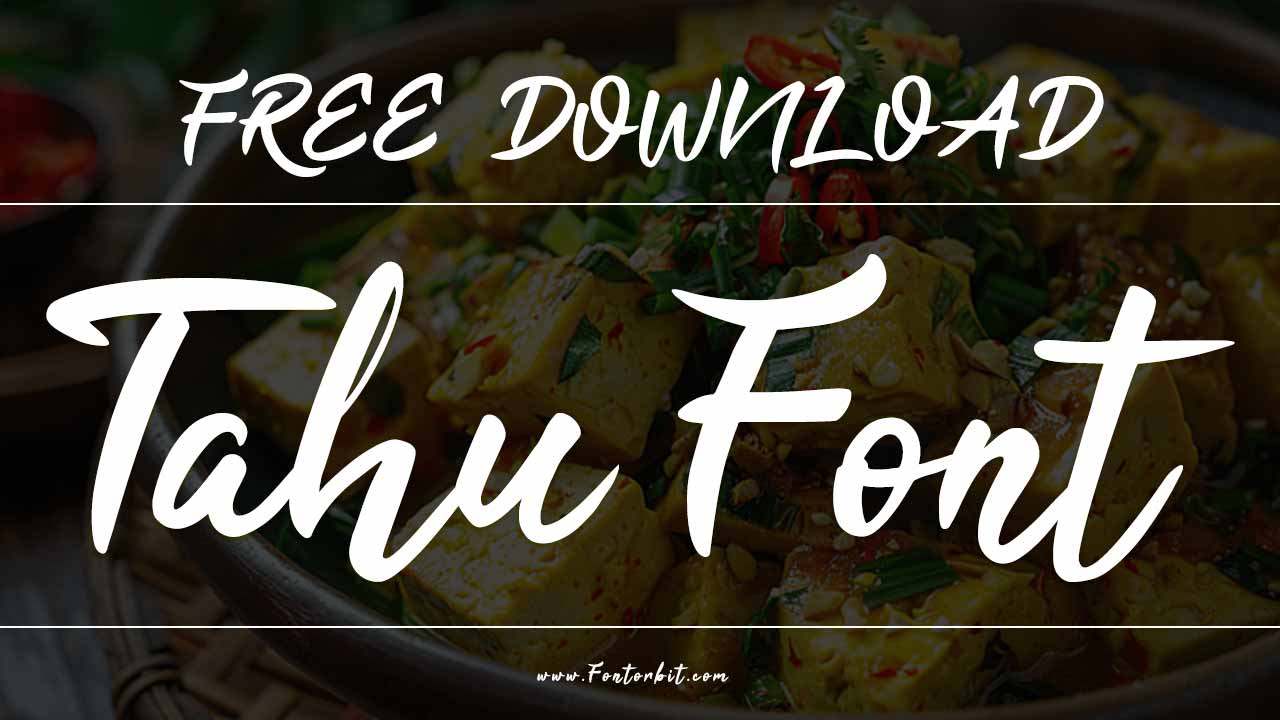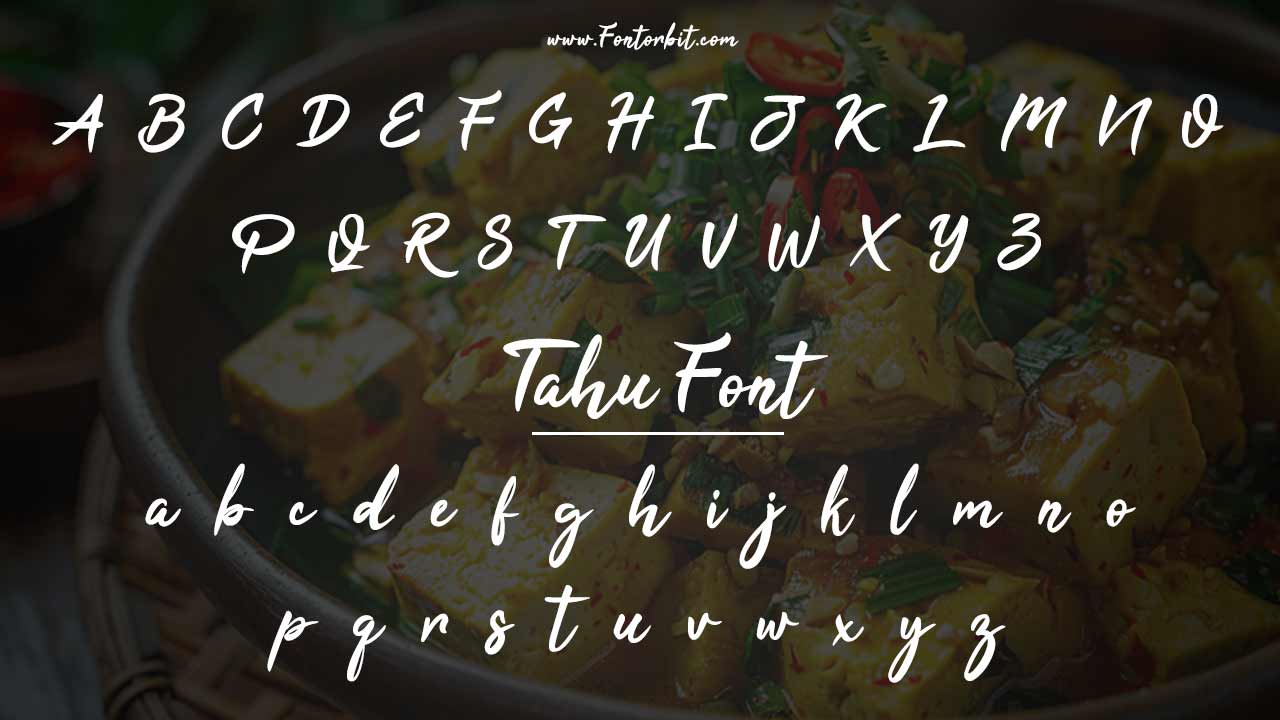
Fonts have personalities, just like people. Some are bold and authoritative, others are playful and whimsical. The Tahu Font script exudes effortless style, akin to a well-dressed friend who consistently maintains a polished appearance without going overboard. If you love modern design and want a font that adds a touch of sophistication without being too fancy, you’ll love Tahu Font.
This beautiful script font, which Syaf Rizal made, gives branding, web design, and creative projects a handwritten look. Tahu Font has the perfect mix of modern and classic looks, so it is great for making social media captions, a stylish logo, or a wedding invitation.
Why Choose Tahu Font?
As with clothes, picking the right font needs to fit the occasion and make an impression. Here’s why Tahu Font stands out:
- Handwritten Appeal – It has a natural, smooth flow, making it feel personal yet professional.
- Modern Design – Perfect for fashion brands, influencers, and trendy businesses.
- Versatile – Works well for banners, ads, and web elements.
- Easy to Read – Tahu remains legible and clean, unlike overly decorative script fonts.
- Cultural Connection – Used in New Zealand for materials related to te Tiriti o Waitangi and other Indigenous design projects.
A good font should tell a story, and Tahu does exactly that. It looks casual but put-together, which is great for people who want to add a modern touch to their projects.
Tahu Font Family
Tahu isn’t just one font; it has several variations to fit different design needs. Whether you need something bold or a little softer, there’s a version of Tahu to match your vision:
- Tahu-Bold – Strong and eye-catching, perfect for headlines.
- Tahu Ultra – A heavier version for maximum impact.
- Tahu Italic – A stylish, slanted version for elegant designs.
- Tahu Ultra Italic – Combines boldness with a graceful slant.
With these options, you can mix and match within the same font family to create hierarchy and variation in your designs.
Tahu Font Vs. Similar Fonts
If you’re considering Tahu Font, you might be wondering how it compares to other stylish script fonts. Here’s a quick comparison:
Tahu stands out because it maintains elegance without being overly ornate. It’s not too curly or decorative, making it a great all-rounder for both personal and commercial projects.
Where Can You Use Tahu Font?
The beauty of Tahu Font is that it’s not limited to one type of design. Here are some creative ways you can use it:
1. Branding & Logo Design
If you run a boutique, a skincare brand, or a trendy café, Tahu Font adds a polished yet approachable feel to your branding. Think of it as the font equivalent of a handwritten note, charming, stylish, and full of personality.
2. Web Design & Social Media
Tahu Font is great for website headers, Instagram story highlights, and Pinterest graphics. It stands out while remaining clean and readable, essential for online content.
3. Wedding & Event Invitations
Elegant yet modern, Tahu Font brings a sophisticated touch to wedding invitations, thank-you notes, and party decor. This is the one if you want a script font that feels classy but not overly formal.
4. Nz Cultural & Indigenous Events
Tahu Font has been used in New Zealand’s Māori cultural events, including materials related to Te Pāti Māori, Ngāi Tahu, and Pita Tipene. It’s a font that connects with heritage while maintaining a modern edge.
5. Greeting Cards & Stationery
From heartfelt thank-you cards to stylish planners, Tahu Font adds a handwritten touch that feels personal and warm.
Final Thoughts
Tahu Font is more than just a typeface, it’s a design statement. Whether you’re a brand owner, a content creator, or just someone who appreciates good typography, this font brings a modern, stylish edge to any project. It’s free, versatile, and effortlessly elegant, what’s not to love? Try Tahu Font if you haven’t already! You might just find it becoming your go-to for stylish, sophisticated designs.
Tahu Font’s smooth curves and flexible design, which blend the best elements of traditional script with a fresh, modern twist, can help set your project apart.